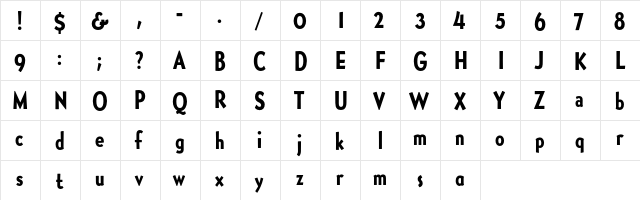
GolucianBoldCondensed Regular Font Preview
Design Context for GolucianBoldCondensed Typeface
GolucianBoldCondensed takes a measured approach to typography — its balanced proportions and neutral character make it a reliable workhorse for both digital and print work. Its bold stroke weight gives it real presence on the page. The condensed width makes it efficient for tight spaces without sacrificing legibility.